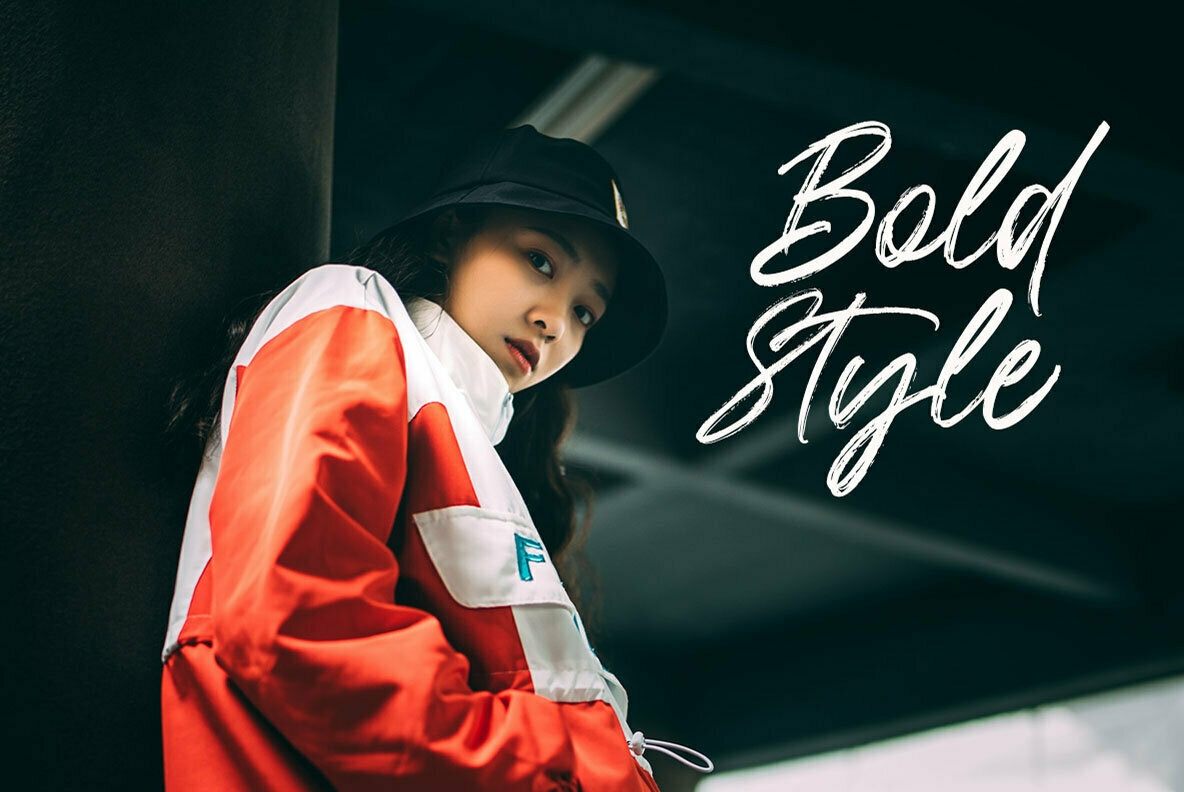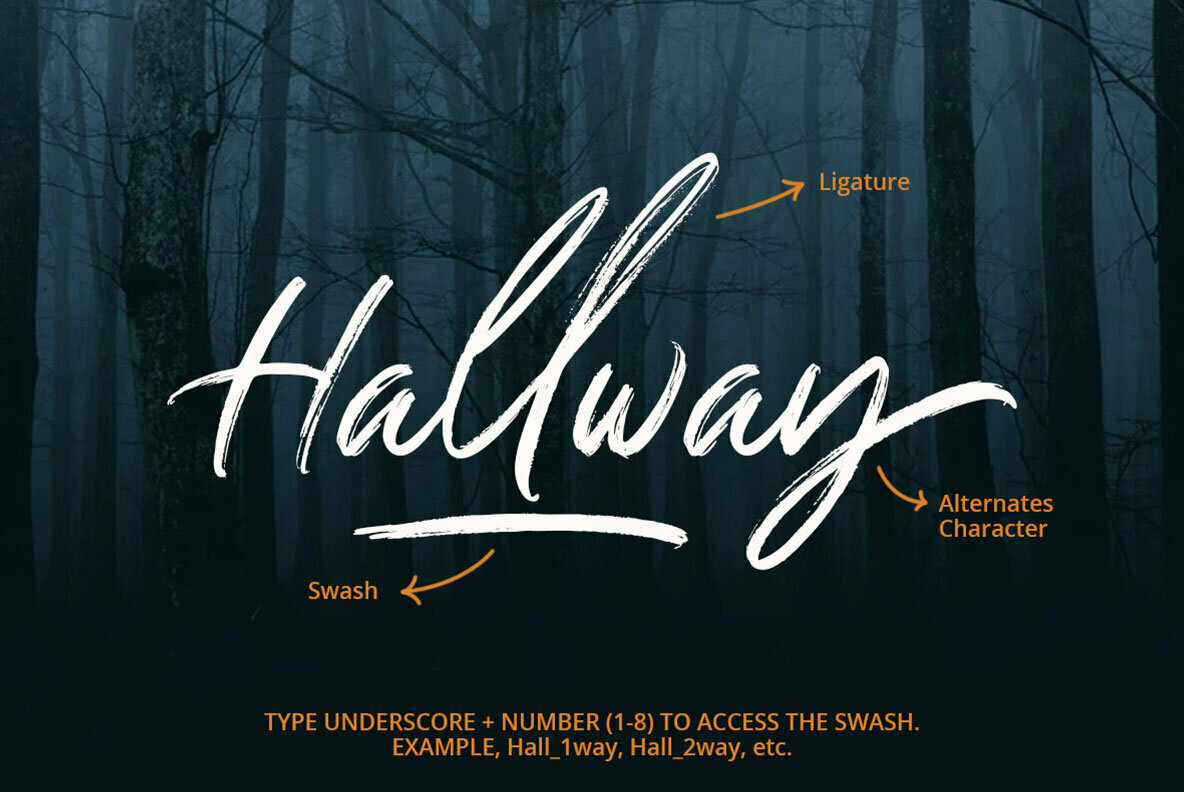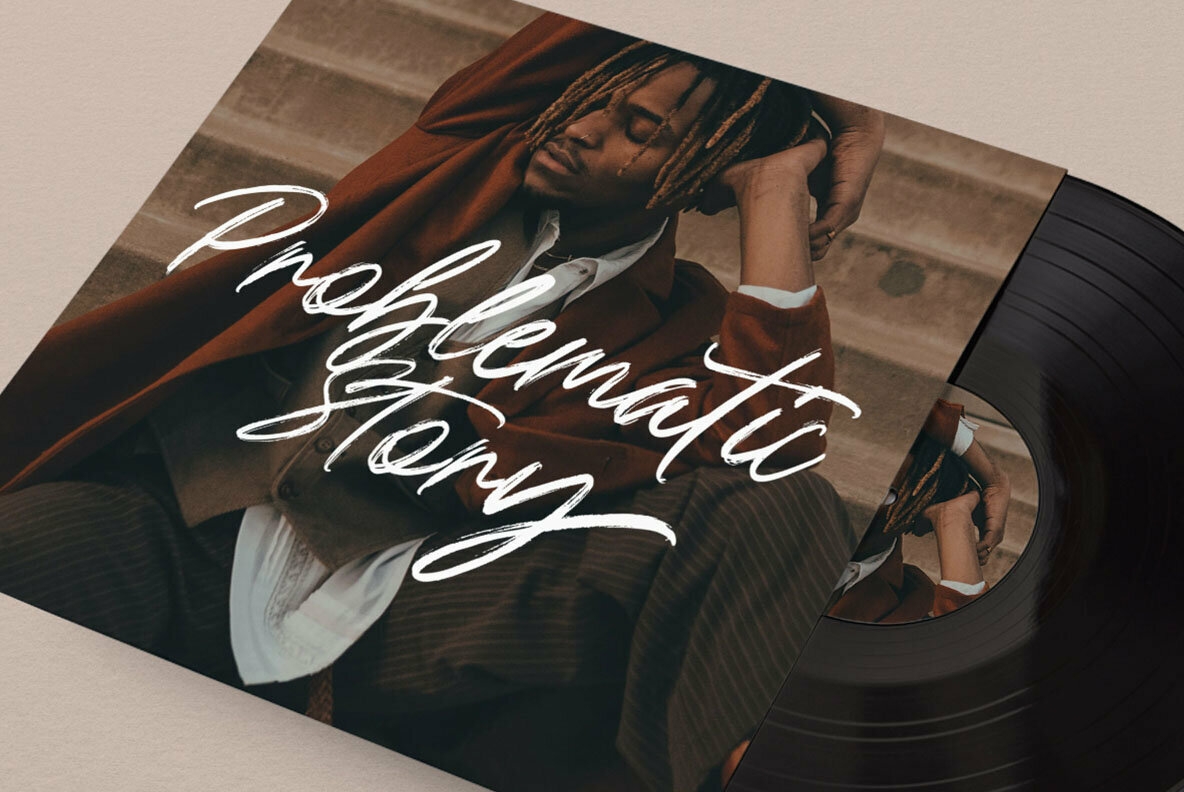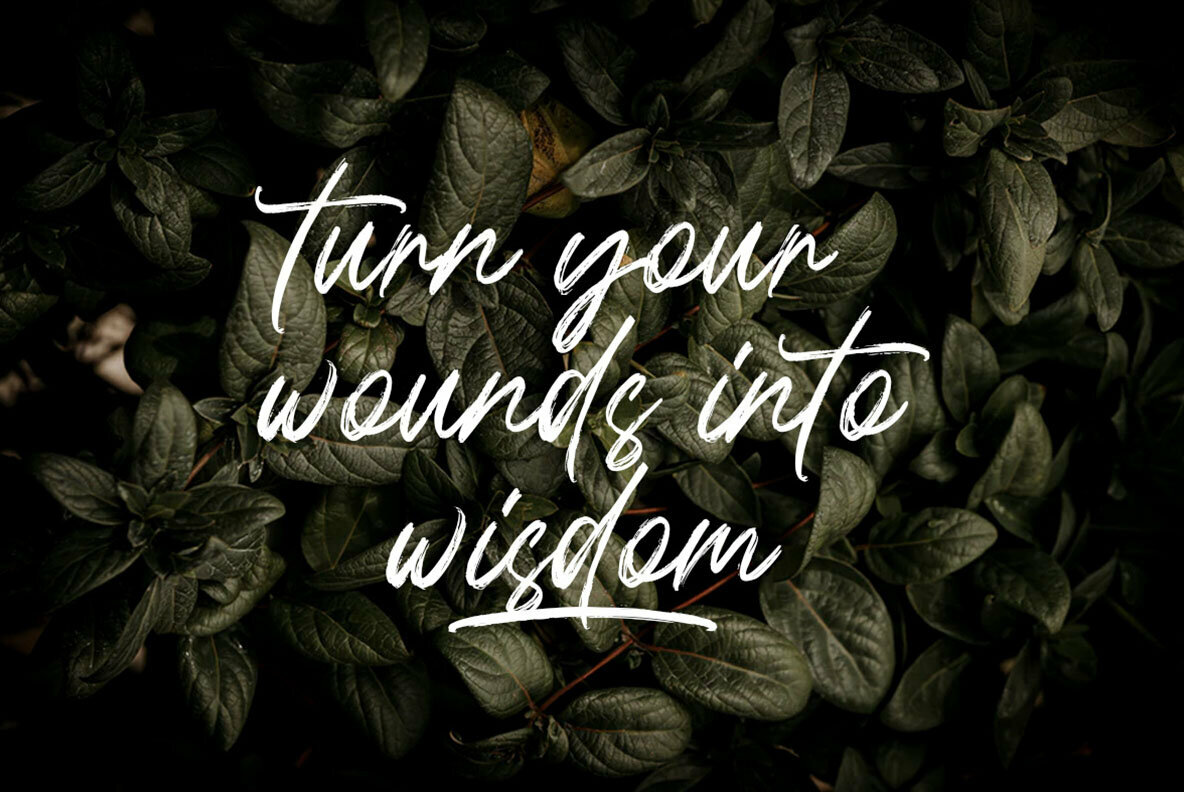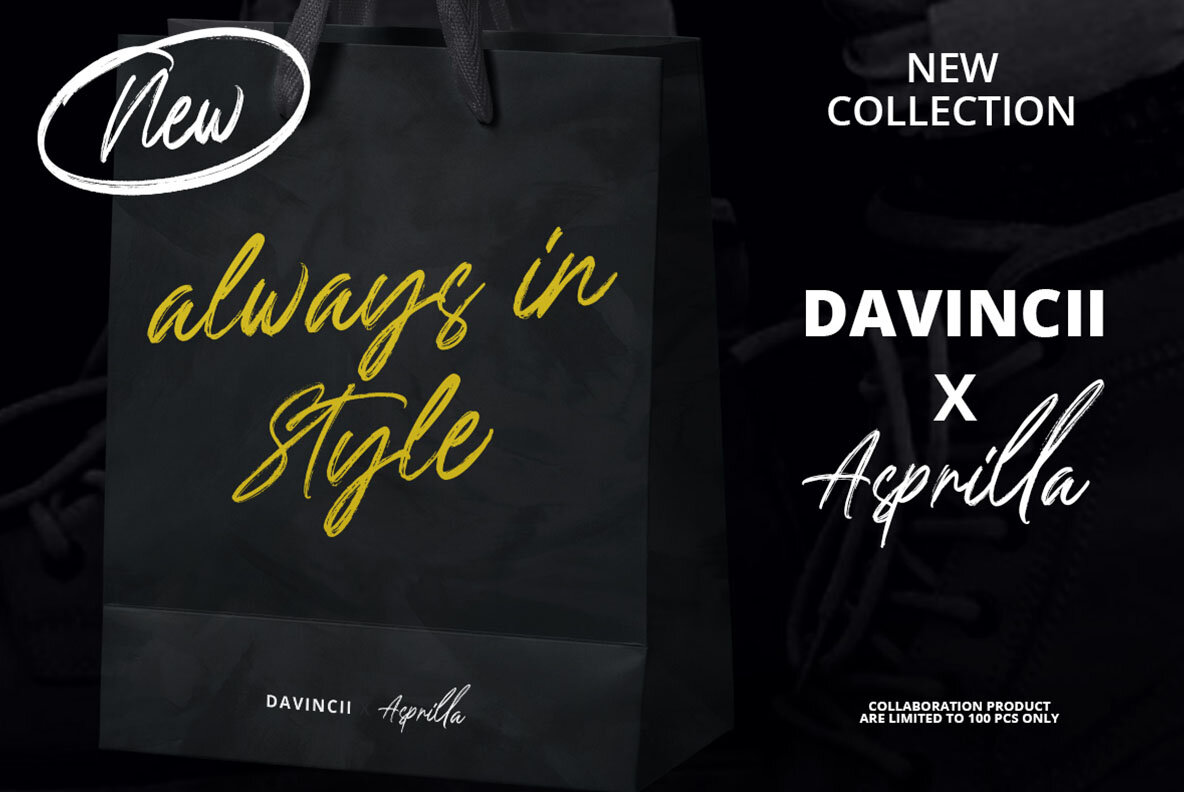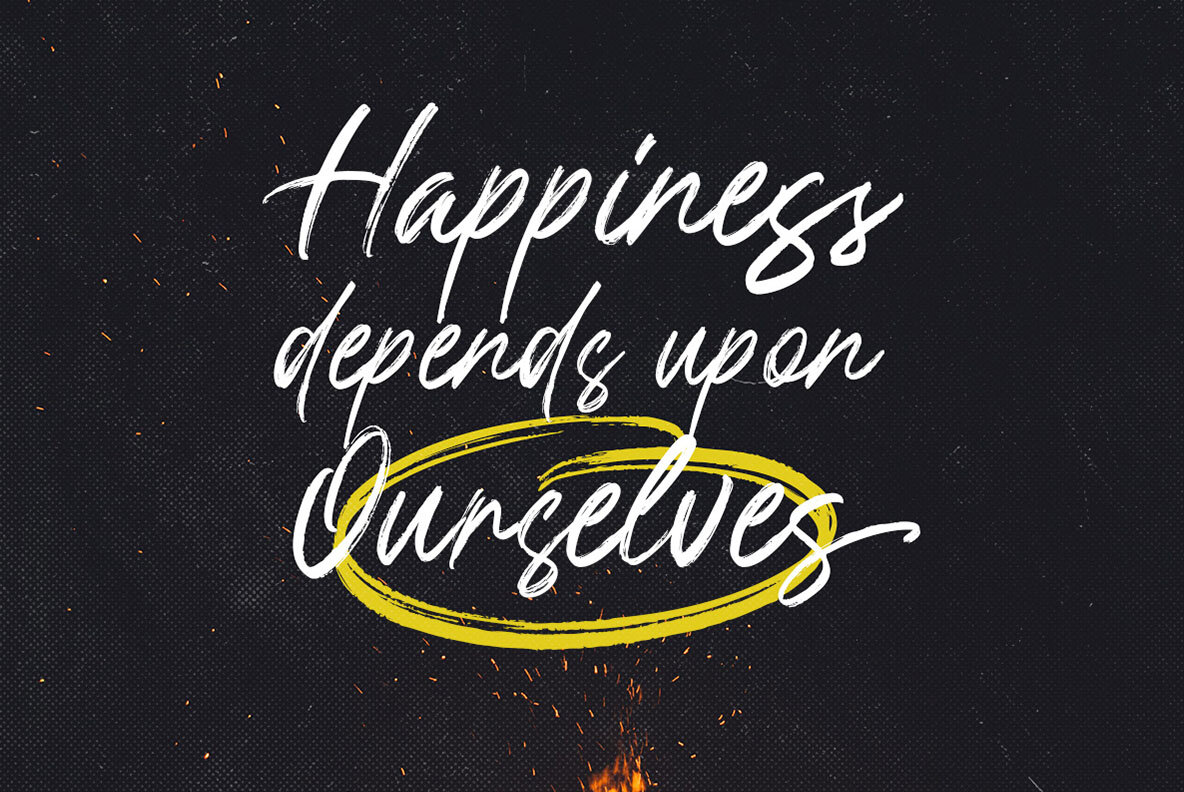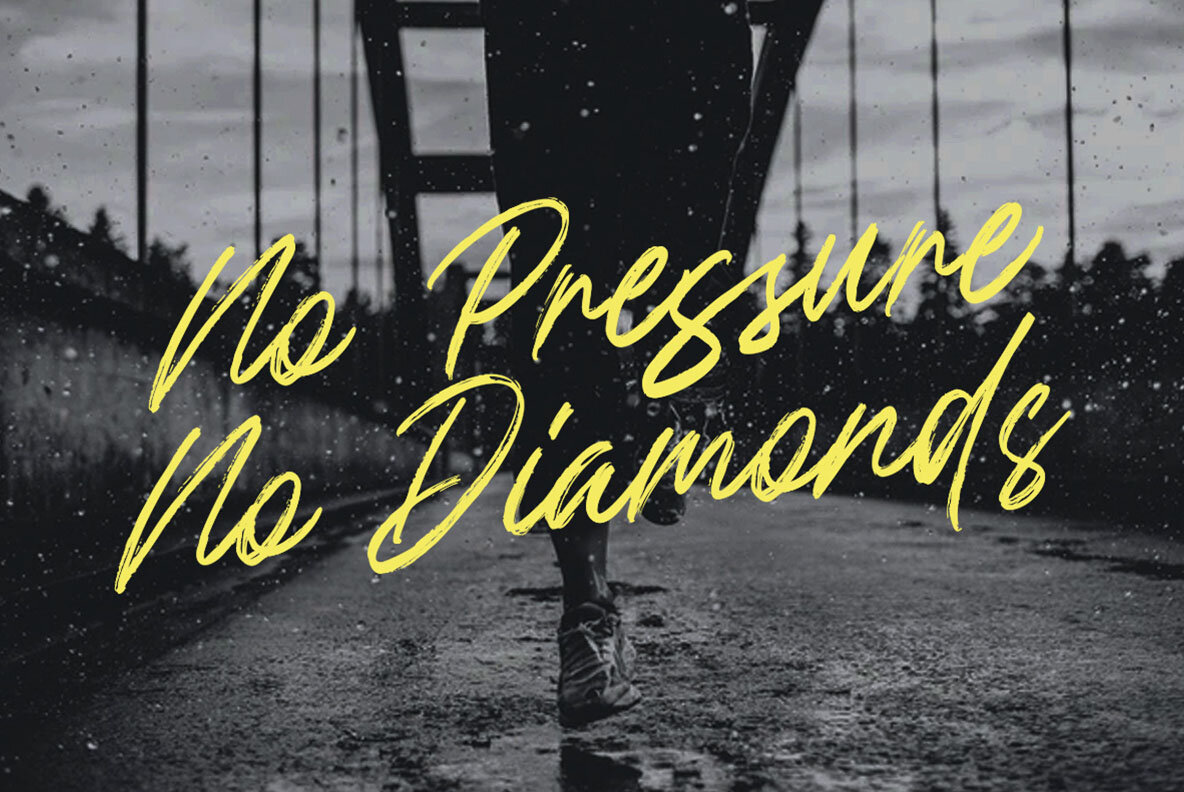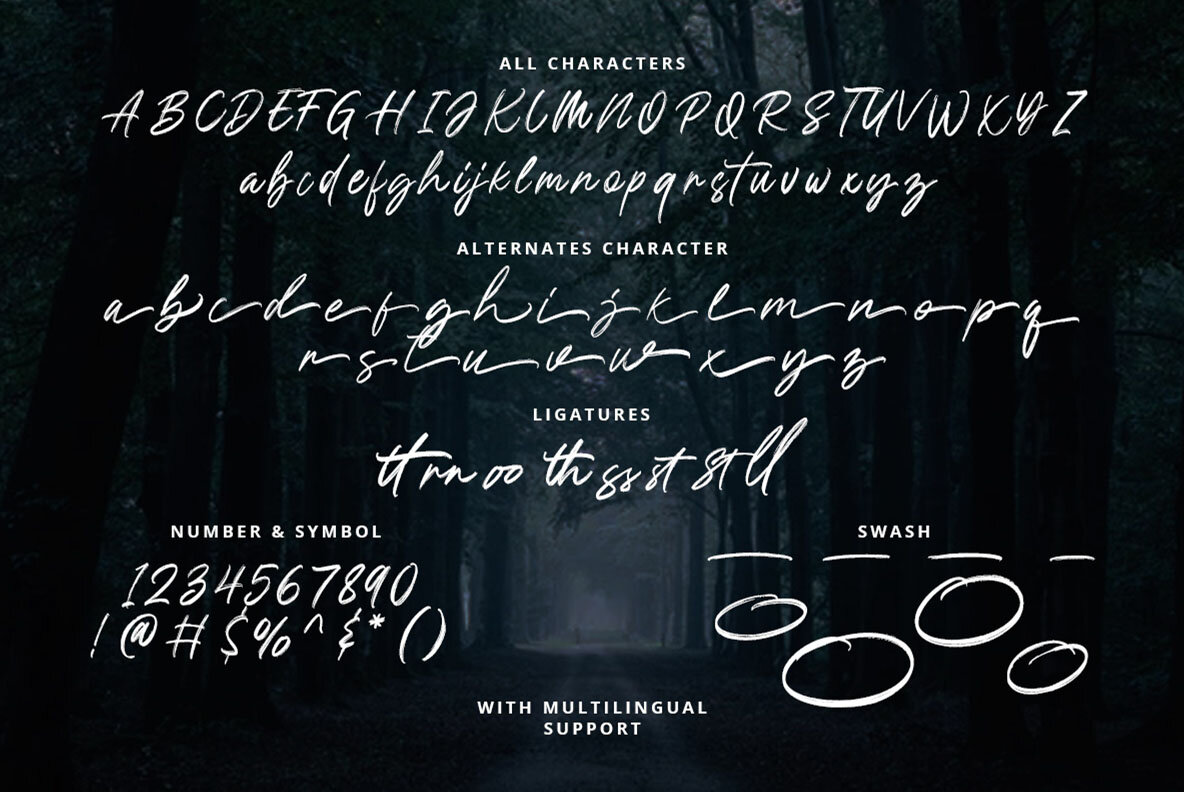
Dark Witches Font
Dark Witches Regular
Dark Witches offers a handwritten brush style that superbly caters to creative projects requiring a personal touch. Ideal for those seeking textured appeal, this font serves as a versatile asset for branding, packaging, advertising, headlines, and logotypes.Dark Witches: A Textured Handwritten Brush Font